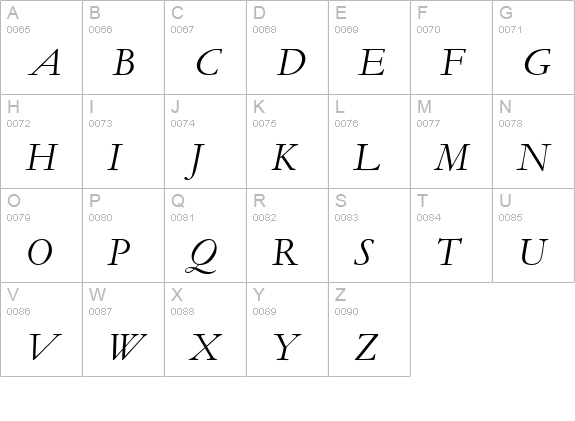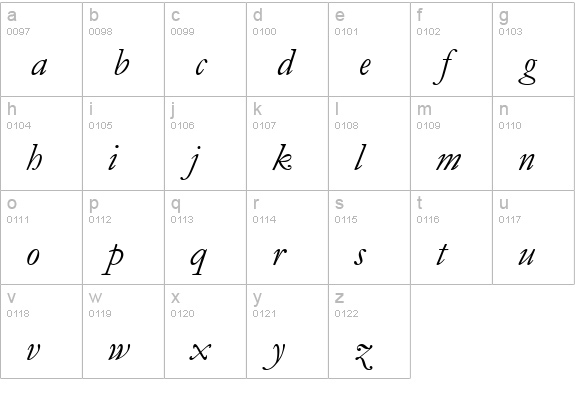
Garamond Italic Font Details
Garamond Italic is a distinctive, italic variant in the Garamond typeface family \xE2\x80\x94 well suited to design and typography projects.
Garamond Italic font is a timeless and elegant typeface that captures the essence of sophistication and refinement. With its graceful curves and slanted letterforms, this font exudes a sense of elegance and style. The Garamond Italic font is a perfect choice for any project that requires a touch of class, whether it is a formal invitation, a high-end brand logo, or a stylish editorial layout. What makes Garamond Italic font even more appealing is that it is freely available to download at FontsMarket.com. This means that designers, creatives, and enthusiasts alike can easily access and incorporate this beautiful font into their projects without any cost. With its versatility and timeless appeal, Garamond Italic font is a valuable addition to any designer's toolkit. The Garamond Italic font's refined and sophisticated aesthetics make it suitable for a wide range of applications. From print materials such as magazines and books to digital platforms like websites and social media graphics, this font can seamlessly blend into various design contexts. Its italicized nature adds a sense of dynamic movement and flair, making it particularly well-suited for titles, headings, and emphasis. When it comes to legibility, Garamond Italic font excels. Its well-balanced letterforms ensure easy reading while maintaining a sense of uniqueness and individuality. The subtle variations in stroke width and the elegant slant create a harmonious rhythm that enhances the overall readability of the text. Garamond Italic font's compatibility with multiple languages further expands its usability and appeal. Whether you need to communicate in English, French, German, or any other language, this font provides a seamless and visually pleasing typographic experience. In conclusion, Garamond Italic font is a truly remarkable typeface that effortlessly combines elegance, versatility, and legibility. And the best part is that it is freely available to download at FontsMarket.com. So, why wait? Enhance your designs with the timeless beauty of Garamond Italic font and elevate your creative projects to new heights of sophistication and style.